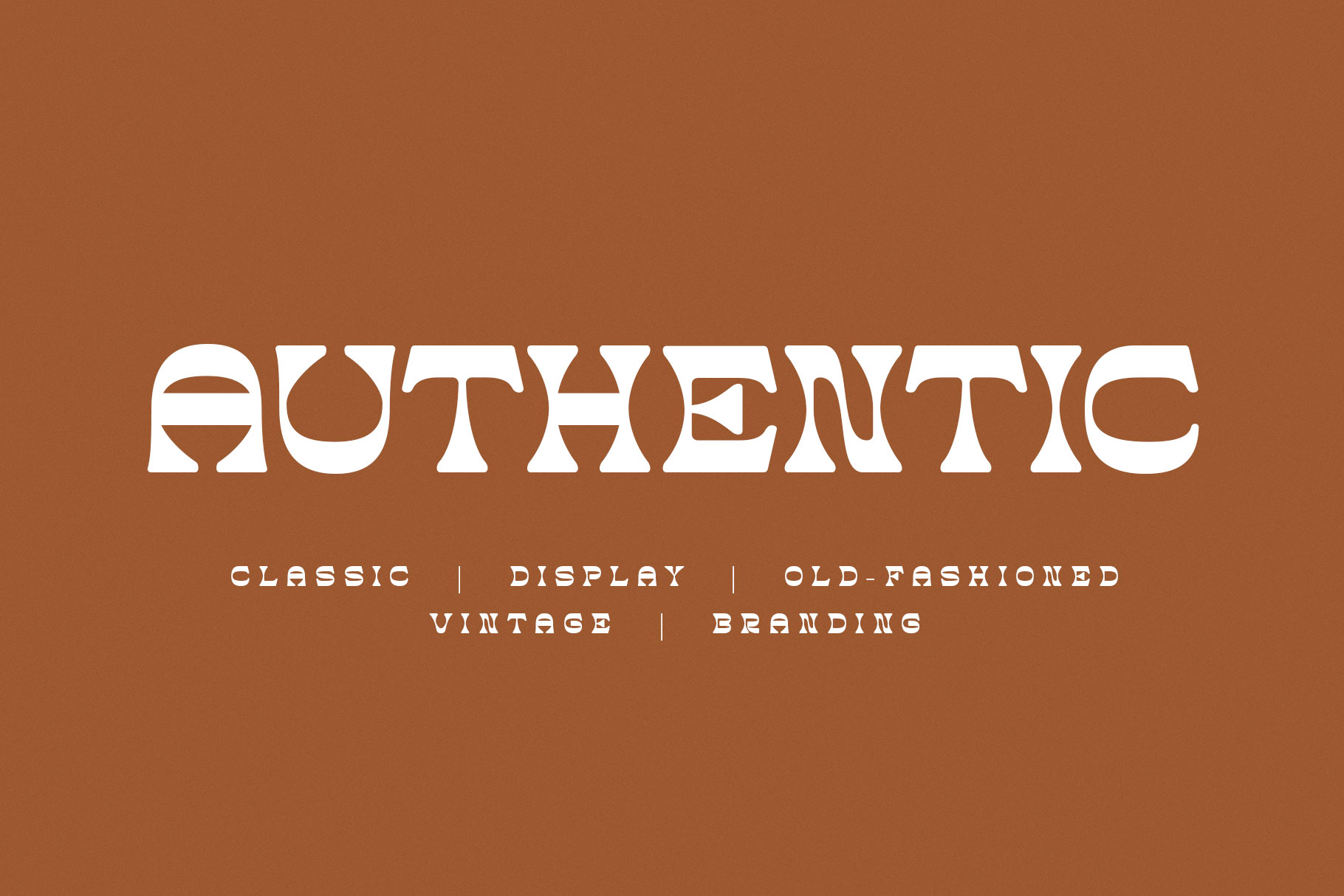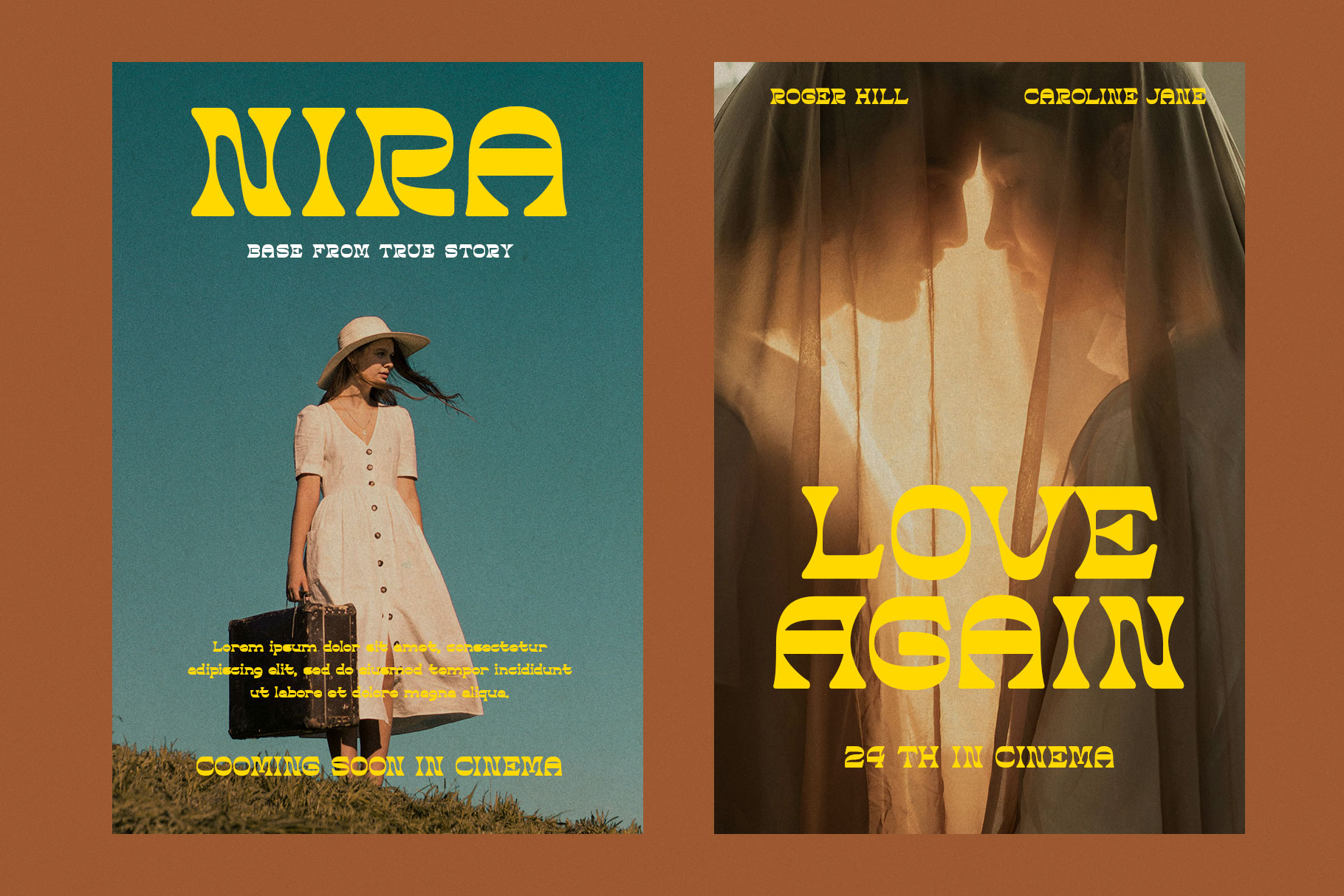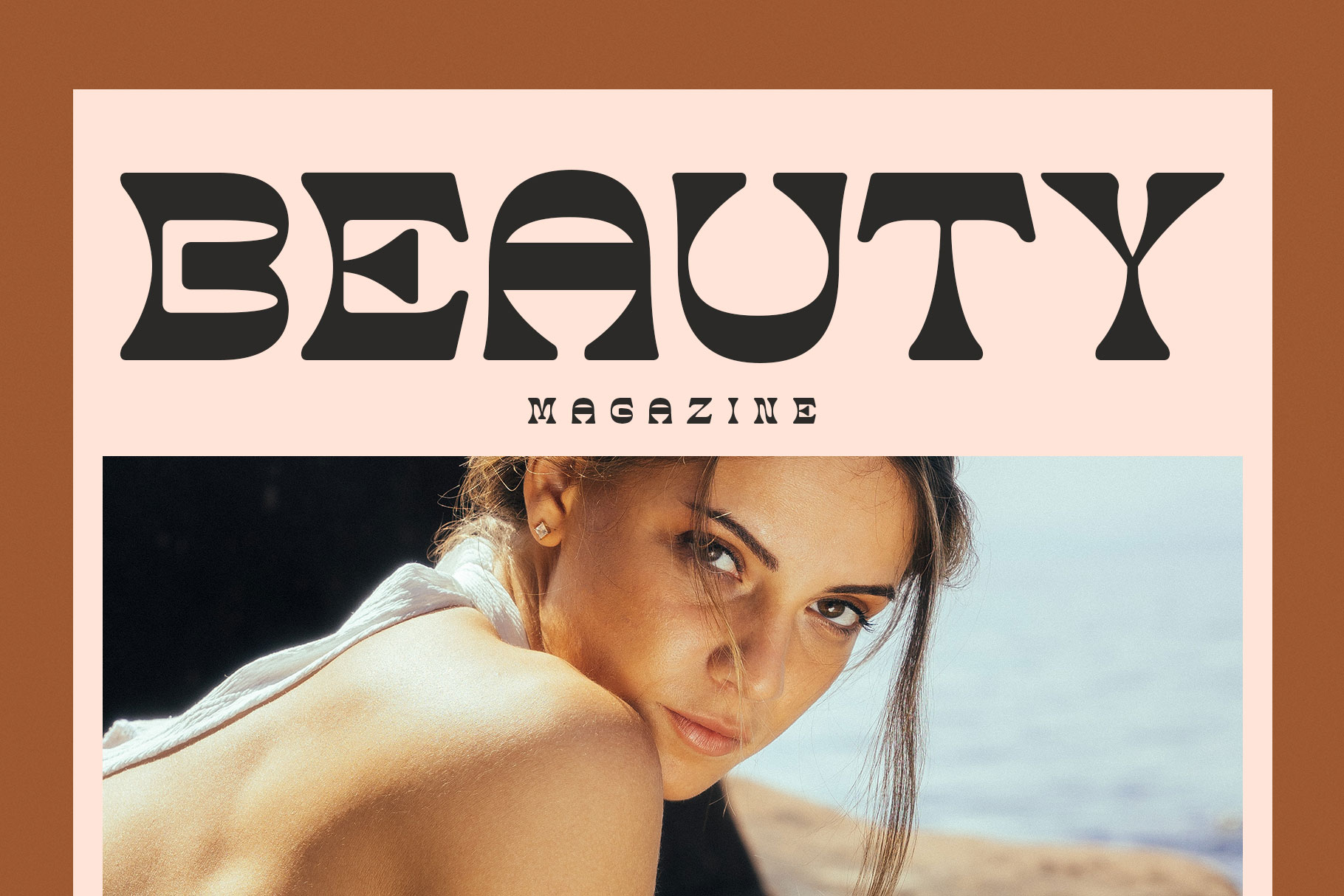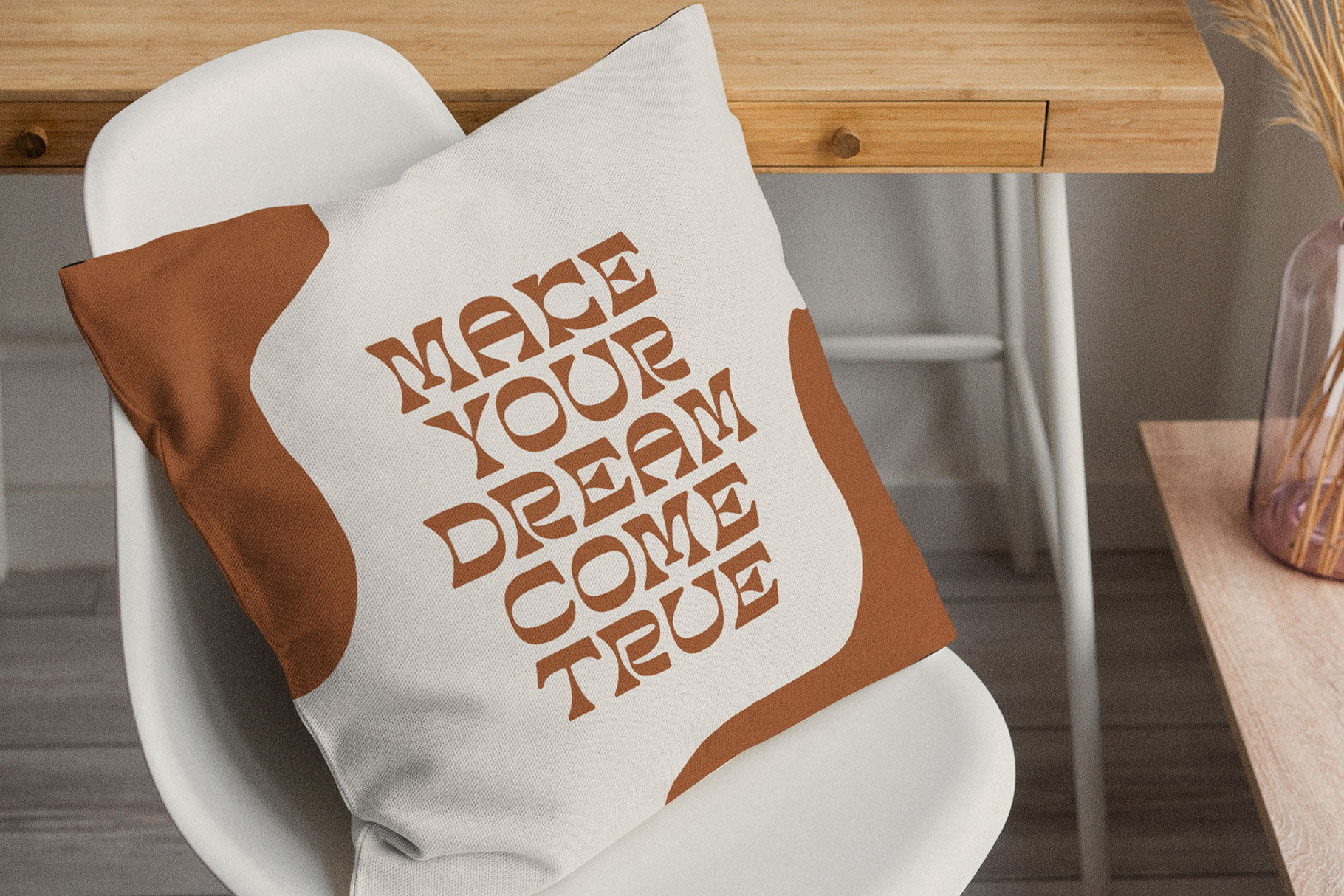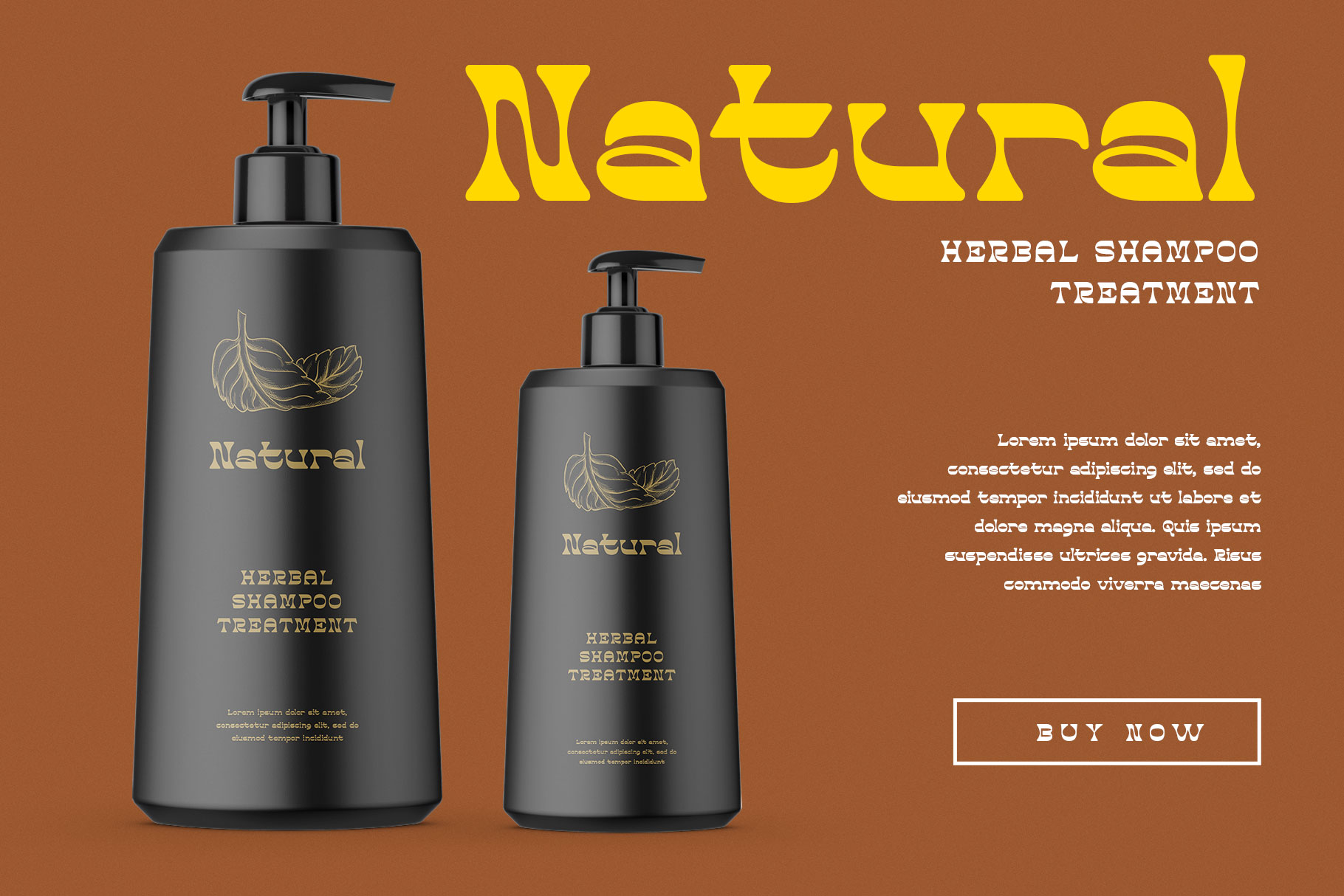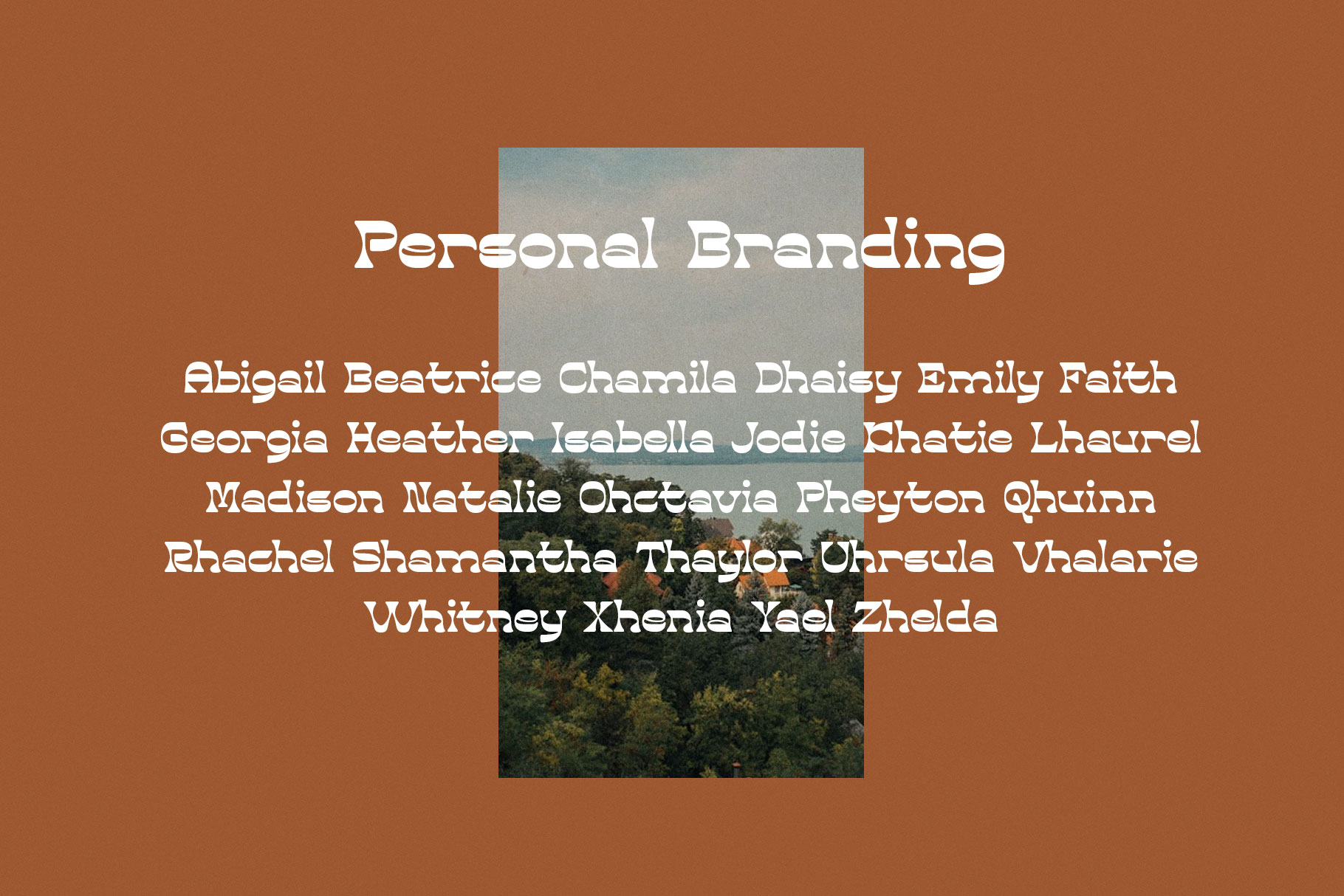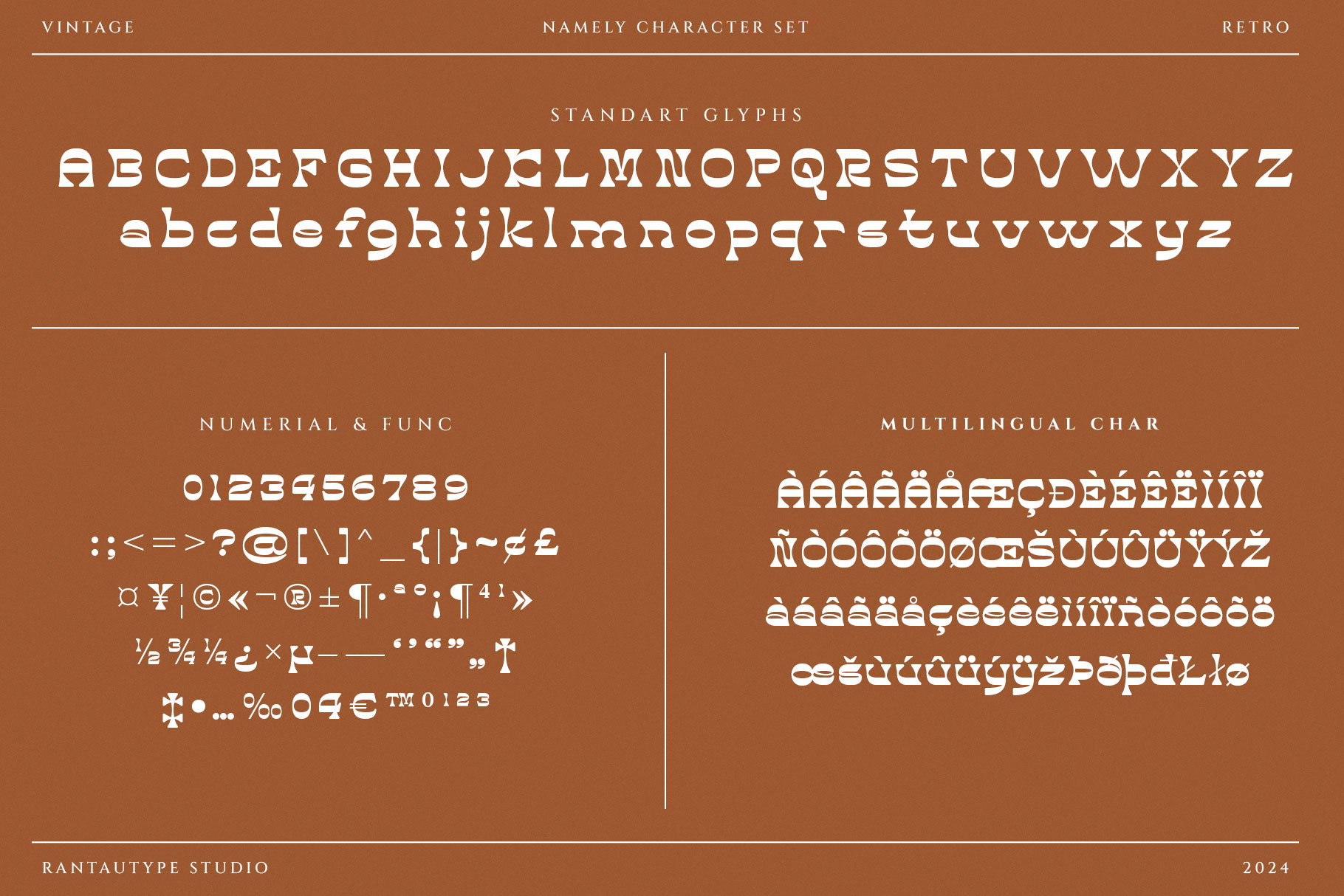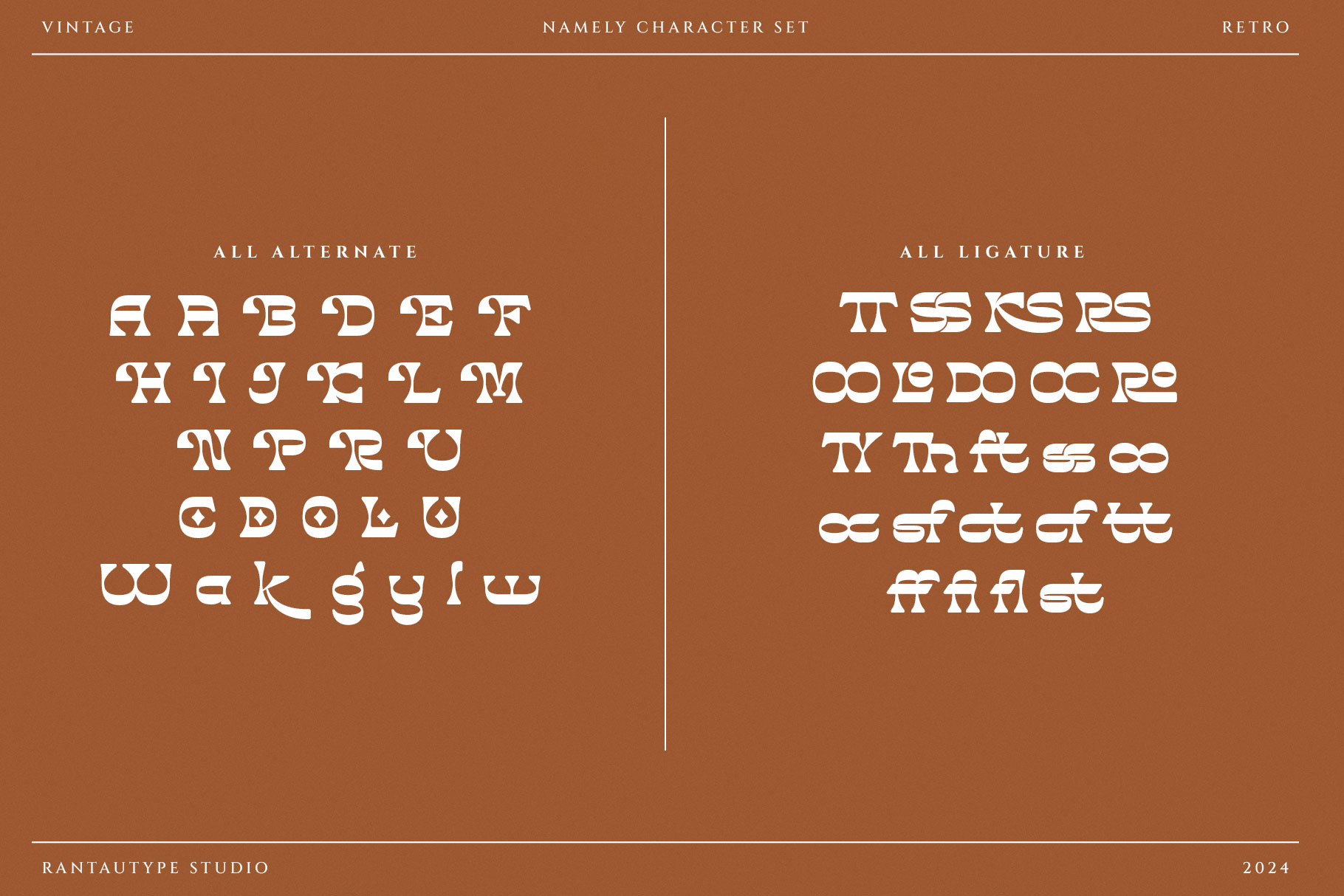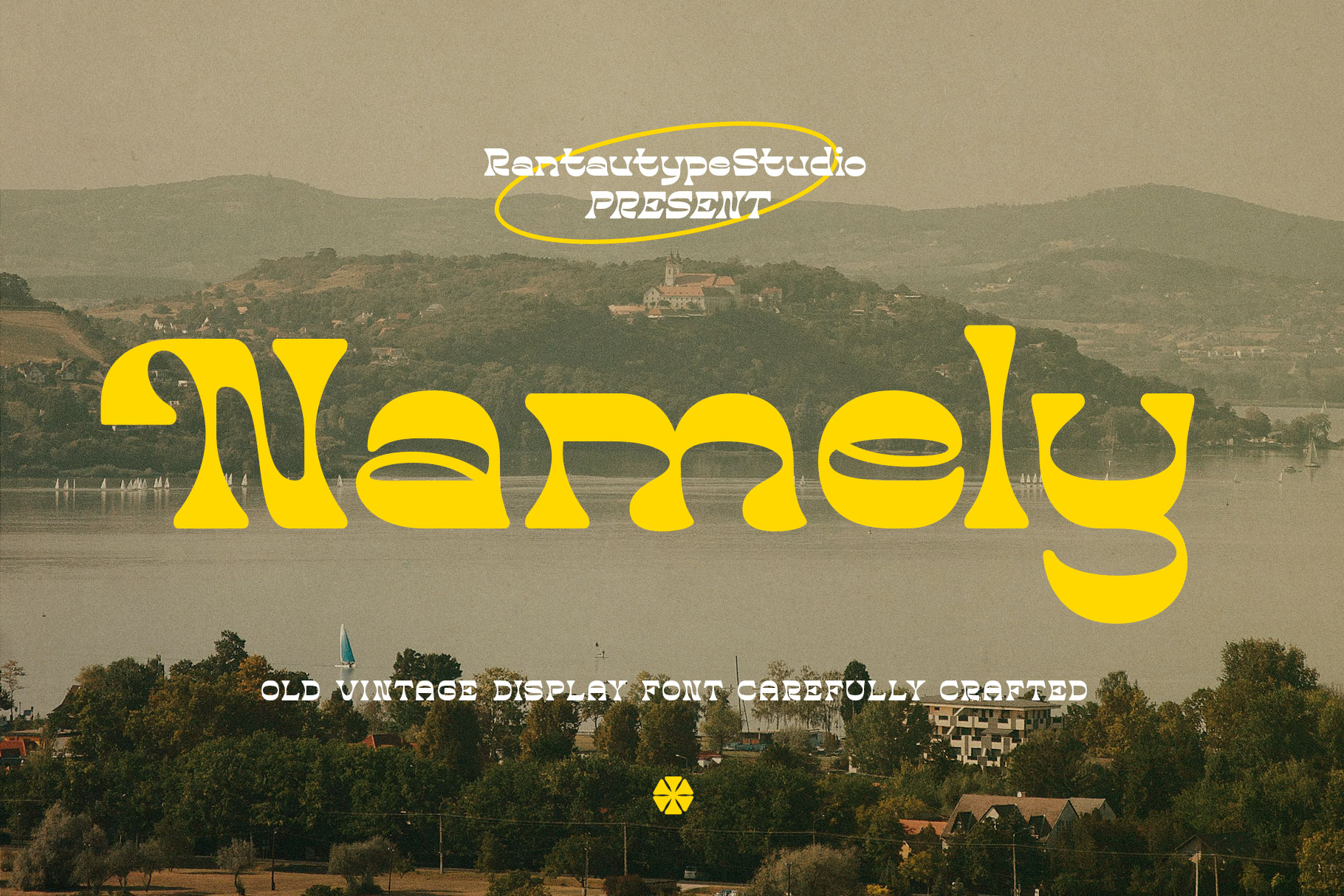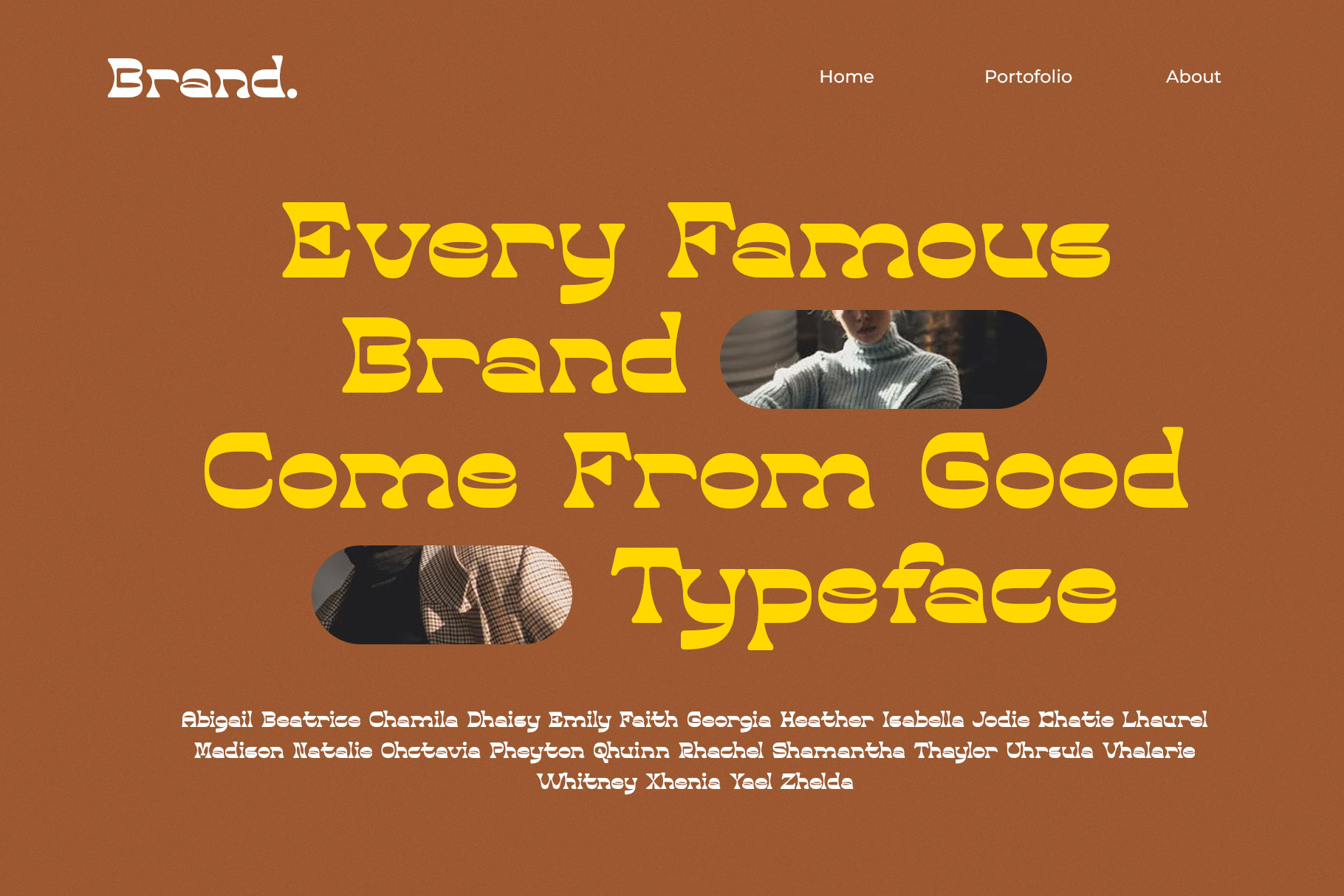
Namely Old Vintage Retro Font
Namely is rounded old vintage font come with more feature to bring your design project stand out!. Namely is a perfectly choice for any creative endeavor, chic, lifestyle design such as logos, advertisements, stationery, branding project, display and magazine, invitation, corporate brand, product design, label, business project and many other project with vintage or retro touch.